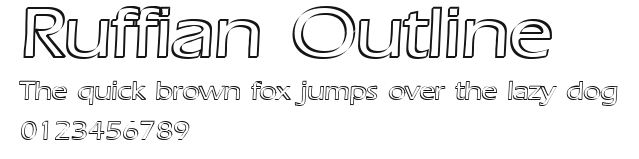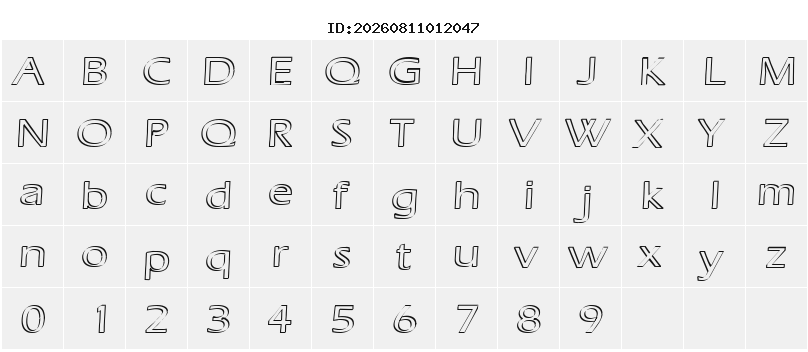
• Font Name: Ruffian Outline
• Full Font Name: Ruffian Outline
• Copyright: Generated by Fontographer 3.5, Andy Krahling, sunwalk
About Ruffian Outline.ttf
Ruffian Outline.ttf is a modern, elegant sans-serif font designed for ultimate readability and visual harmony. Perfect for branding, headlines, web design, and print materials.